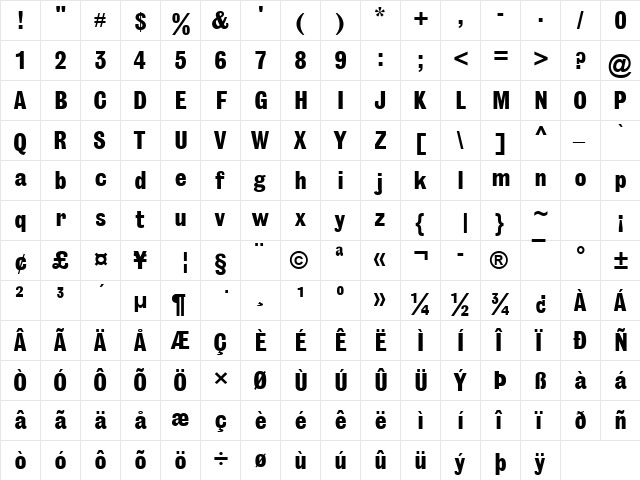
Headline MT Bold Regular
Design Context for Headline MT Bold Typeface
Headline MT Bold offers clean, dependable letterforms without strong stylistic allegiance, making it a practical choice for designers who need flexibility. Its bold stroke weight gives it real presence on the page.